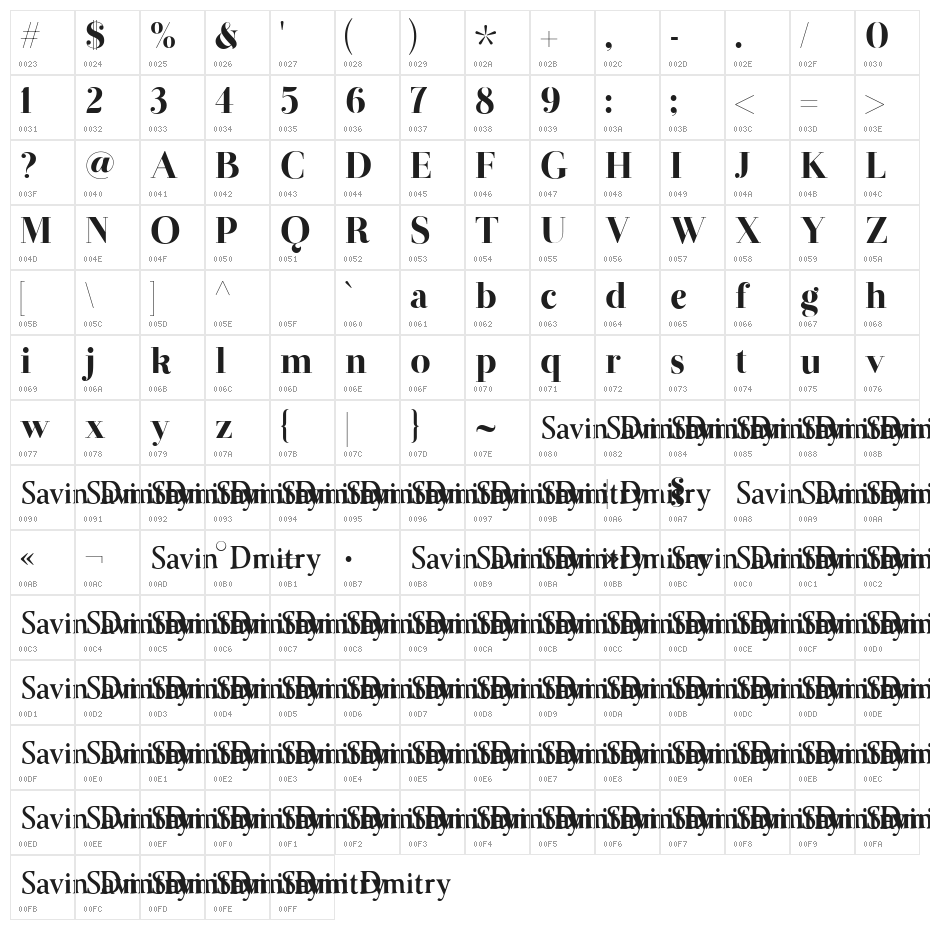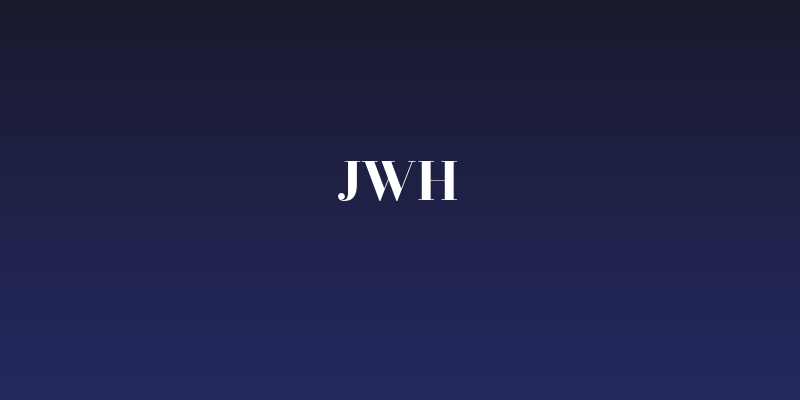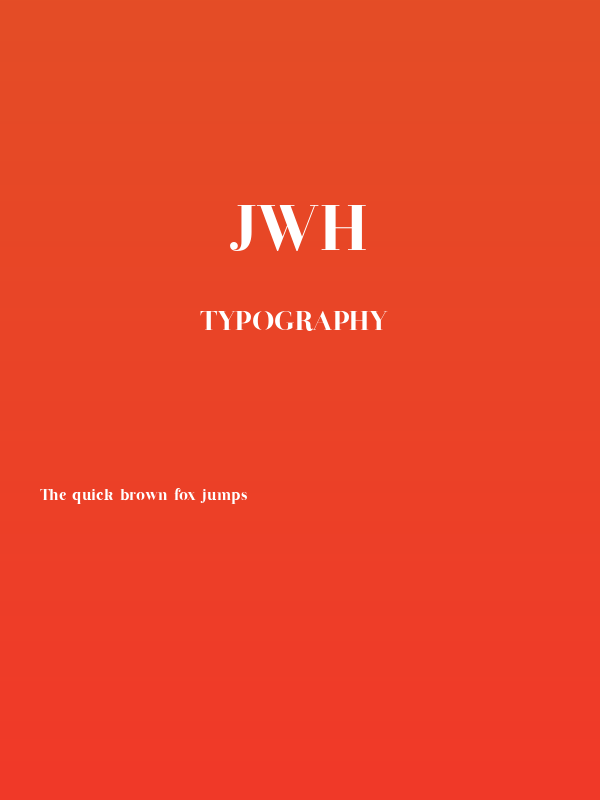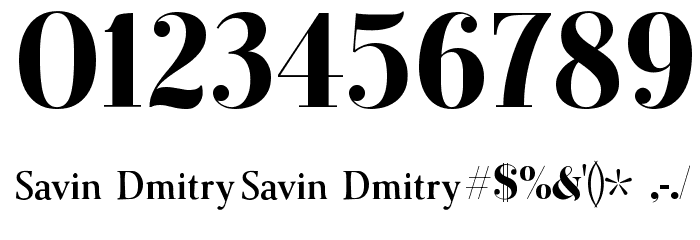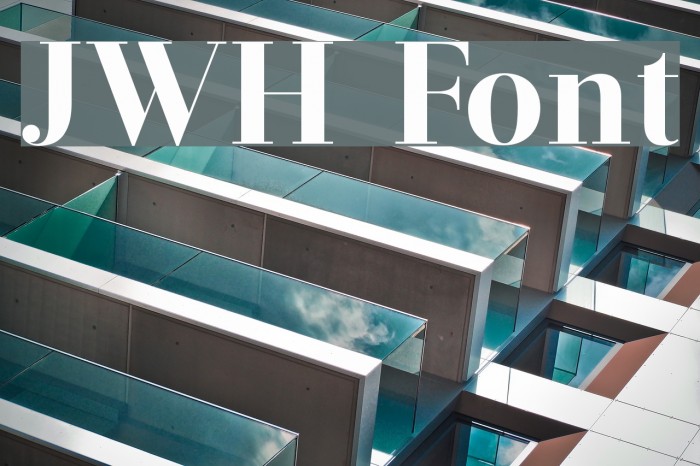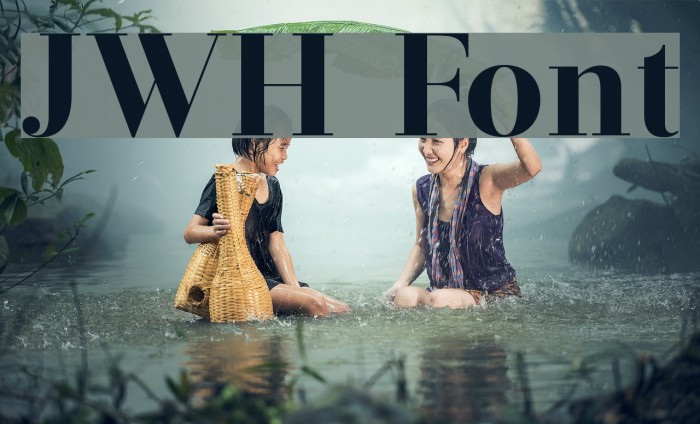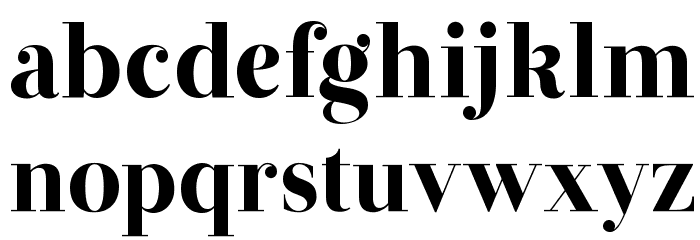
JWH Font
JWH Description
This font features a classic serif design with high contrast between thick and thin strokes, giving it an elegant and sophisticated appearance. The uppercase letters are bold and commanding, while the lowercase letters maintain a balanced and readable form. The numerals are distinct and clear, making them suitable for various applications. Special characters are well-integrated, maintaining the overall aesthetic of the font. The design is reminiscent of traditional serif fonts, yet it carries a modern touch, making it versatile for both contemporary and classic projects.
| Overall Style | Classic |
| Use Case | Headlines, Body text, Logos |
| Proposed Projects | Ideal for editorial design, book covers, luxury branding, and formal invitations. |